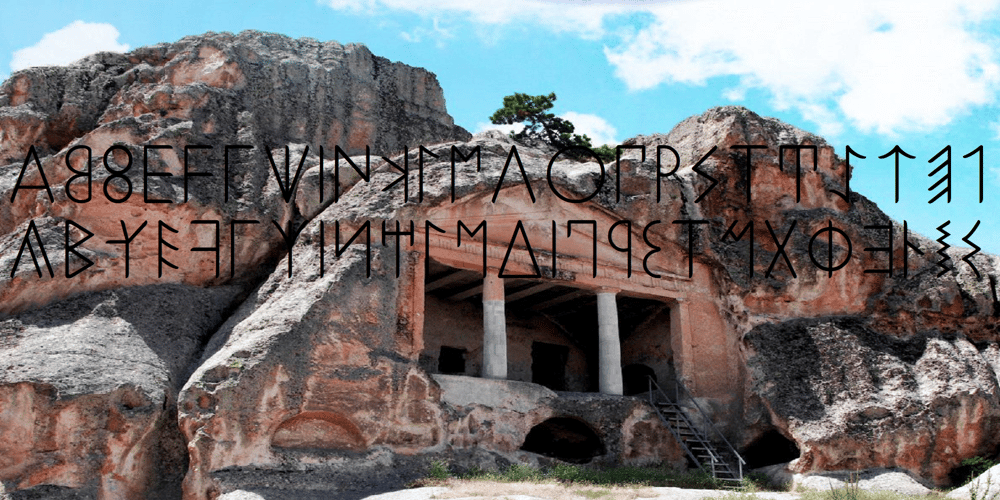
Ongunkan Phrygian
Ongunkan Phrygian font
Ongunkan Phrygian Font Family was designed by Osman Nuri ALKAN and published by Runic World Tamgacı. Ongunkan Phrygian contains 1 styles and family package options. Phrygia is the Greek name of an ancient state in western-central Anatolia (modern Turkey), extending from the Eskişehir area east to (perhaps) Boğazköy and Alishar Hüyük within the Halys River bend. The Assyrians, a powerful state in northern Mesopotamia to the south, called the state Mushki; what its own people called it is unknown. We know from their inscriptions that the Phrygians spoke an Indo-European language. Judging from historical records supported by ceramic evidence, settlers migrating from the Balkans in Europe first settled here a hundred or more years following the destruction of the Hittite empire (ca. 1200 B.C.).Most of what is known about Phrygian archaeology and its language derives from excavations at the capital city Gordion, located about 60 miles southwest of the modern Turkish capital of Ankara (also a Phrygian site). Gustav and Alfred Körte first excavated Gordion in 1900. The excavators did not reach Phrygian levels, but they did reveal burials dated to the late eighth century B.C. with Phrygian ceramic, metal, and wooden artifacts. From 1950 to 1973, Rodney S. Young of the University of Pennsylvania led excavations at Gordion. Archaeological work at the site resumed in 1988 and continues to the present.